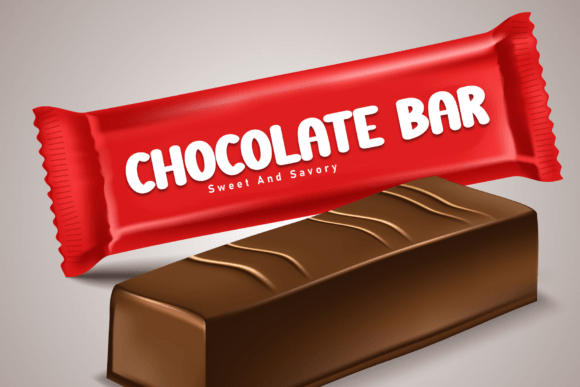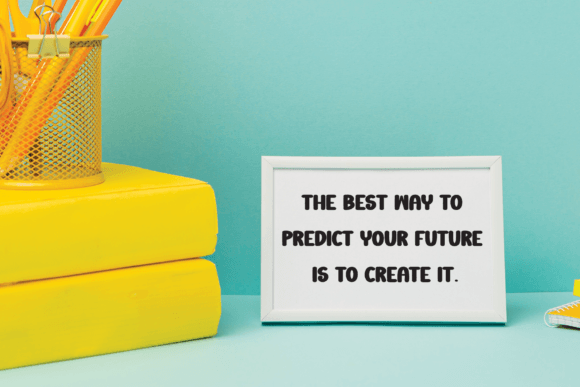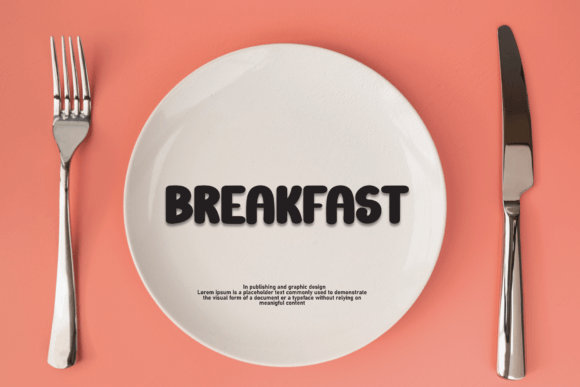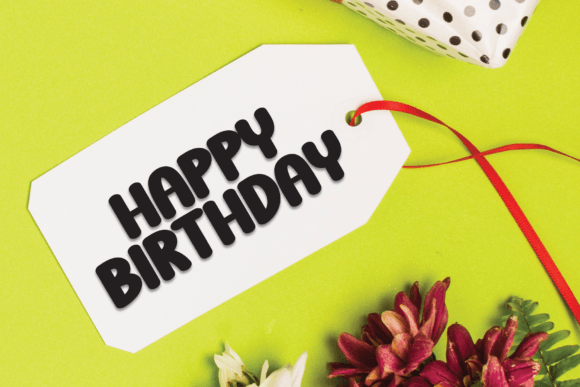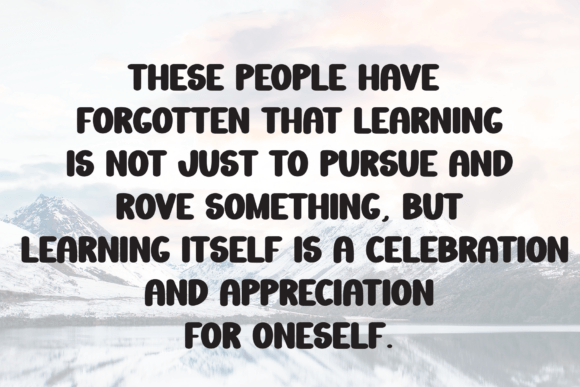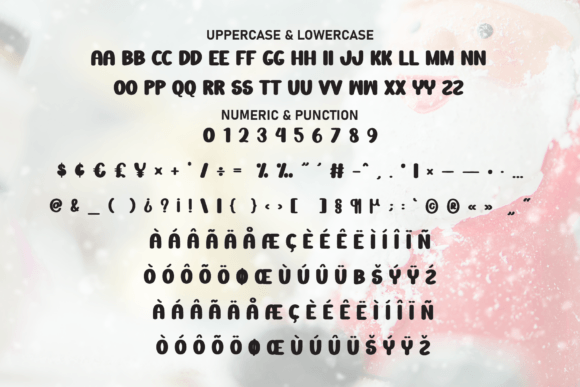
Introduction to Snow Santa Font
Snow Santa is a fun and bold handwritten font.
It features playful letters that look like they were written with a snow-covered pen The design has a cheerful and festive feel, perfect for holiday cards, decorations, and cozy winter projects.
Key Features of Snow Santa Font
Why Choose Snow Santa Font?